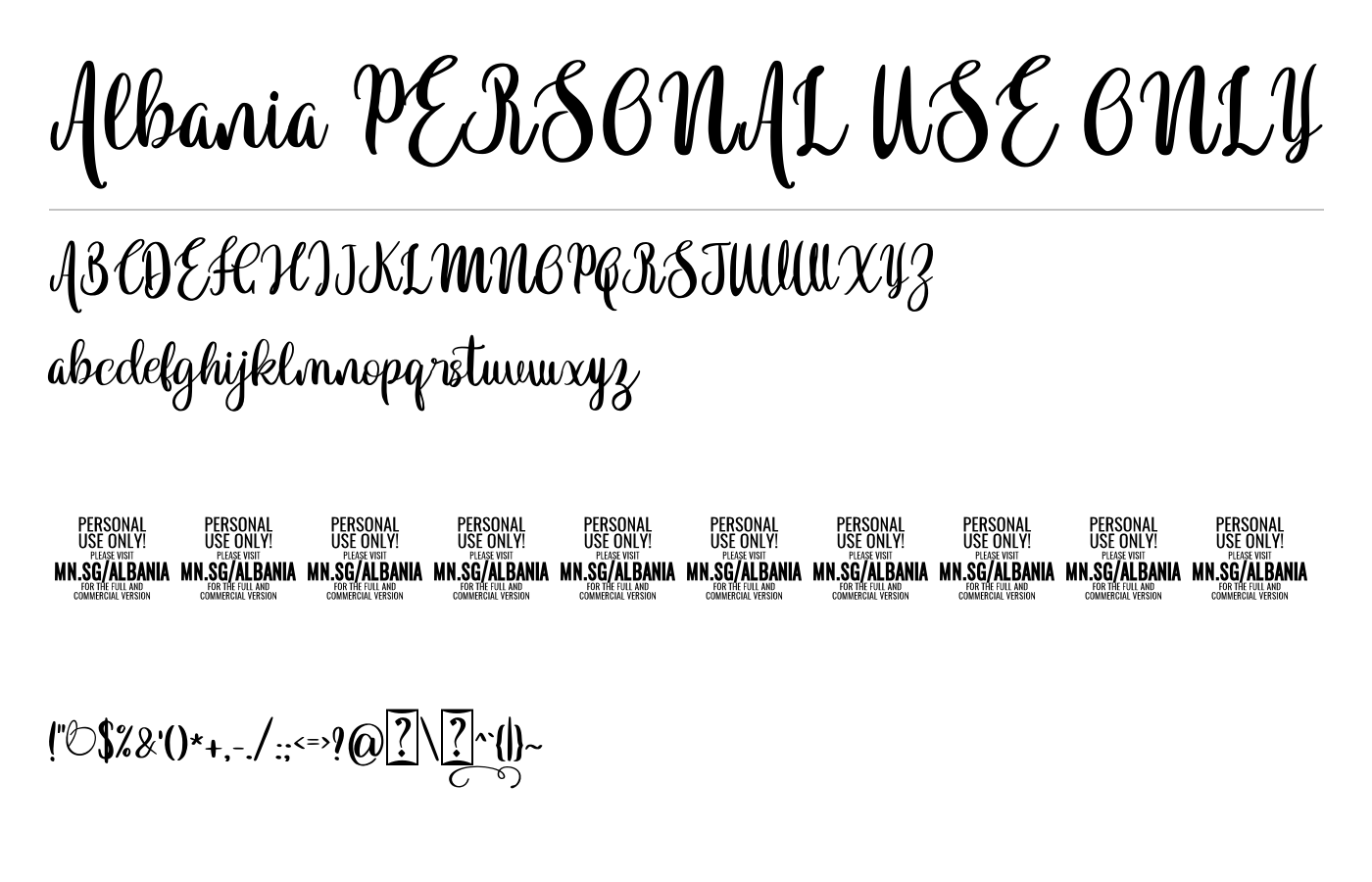
Albania is an elegant, hand-drawn script font with a graceful, flowing style that feels warm and personal. Its slender strokes and delicate curves give it a charming, sophisticated look, perfect for invitations, branding, or any design needing a touch of refined yet approachable personality. This font works beautifully for creative projects that want to combine a handmade feel with stylish elegance.
Albania PERSONAL USE ONLY Font
About Albania PERSONAL USE ONLY Font